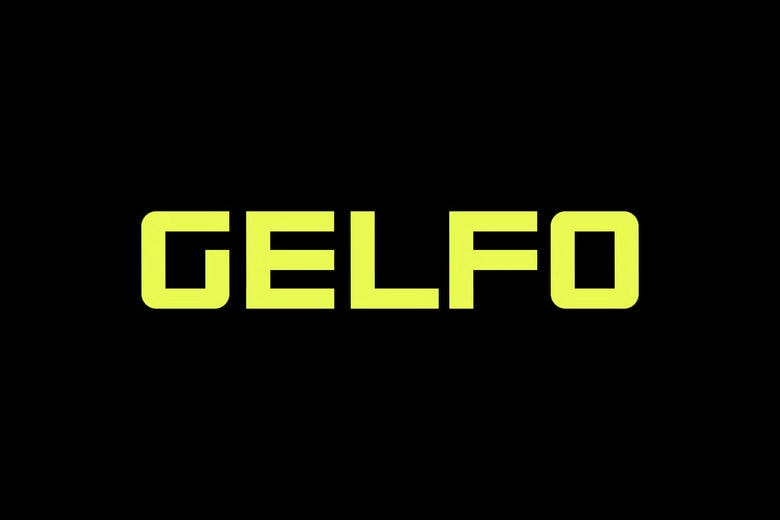
Gelfo Font
Gelfo Font Display Style is a bold and authentic font. It works well for branding projects such as logos, esports, and more. This font stands out in many different settings.
Gelfo Display Font